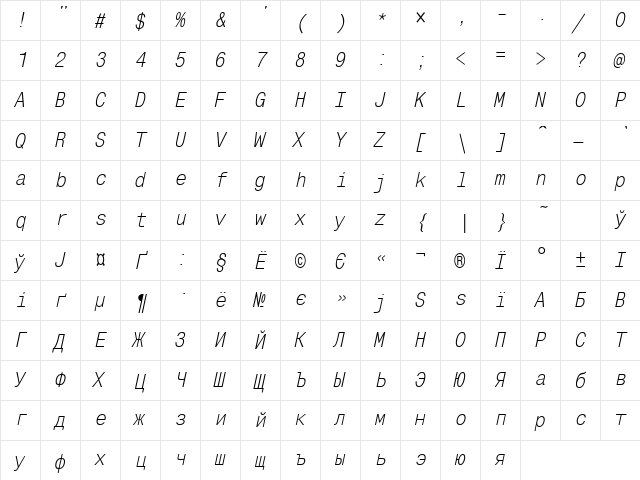
MonoCondensedC Italic
Design Context for MonoCondensedC Typeface
MonoCondensedC brings the precise, column-aligned rhythm of monospaced typography to designs that value technical clarity and systematic order. The slanted form adds forward momentum and visual energy.
Pro Tip: Use MonoCondensedC with slightly increased line-height for extended reading — fixed-width spacing can feel dense in longer passages without extra breathing room.